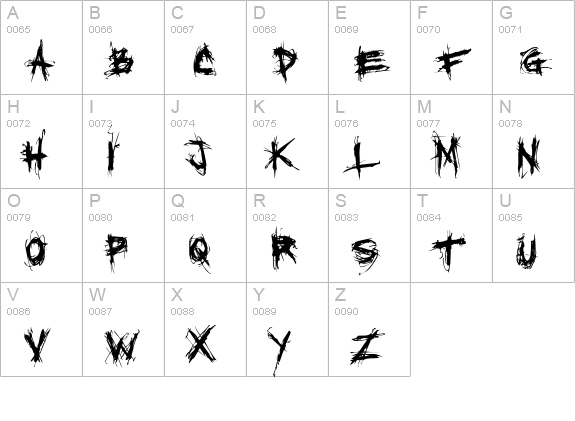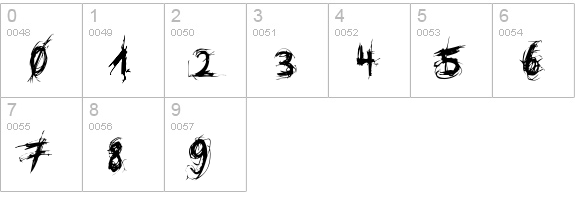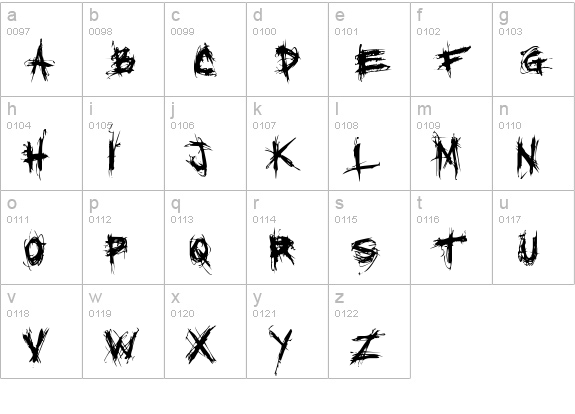
XXII SCRATCH Font Details
XXII SCRATCH font is a unique and artistic typeface that exudes a raw and hand-drawn quality. Each character is meticulously crafted with scratchy lines and irregular shapes, giving it a distinct and edgy appearance. This font is perfect for making a bold statement in your designs, adding a touch of creativity and individuality. The best part is that XXII SCRATCH font is completely free to download at FontsMarket.com. Whether you're working on a personal project or a professional design, this font offers endless possibilities for adding a touch of handmade charm. Don't miss out on the opportunity to enhance your creations with this eye-catching and versatile typeface.